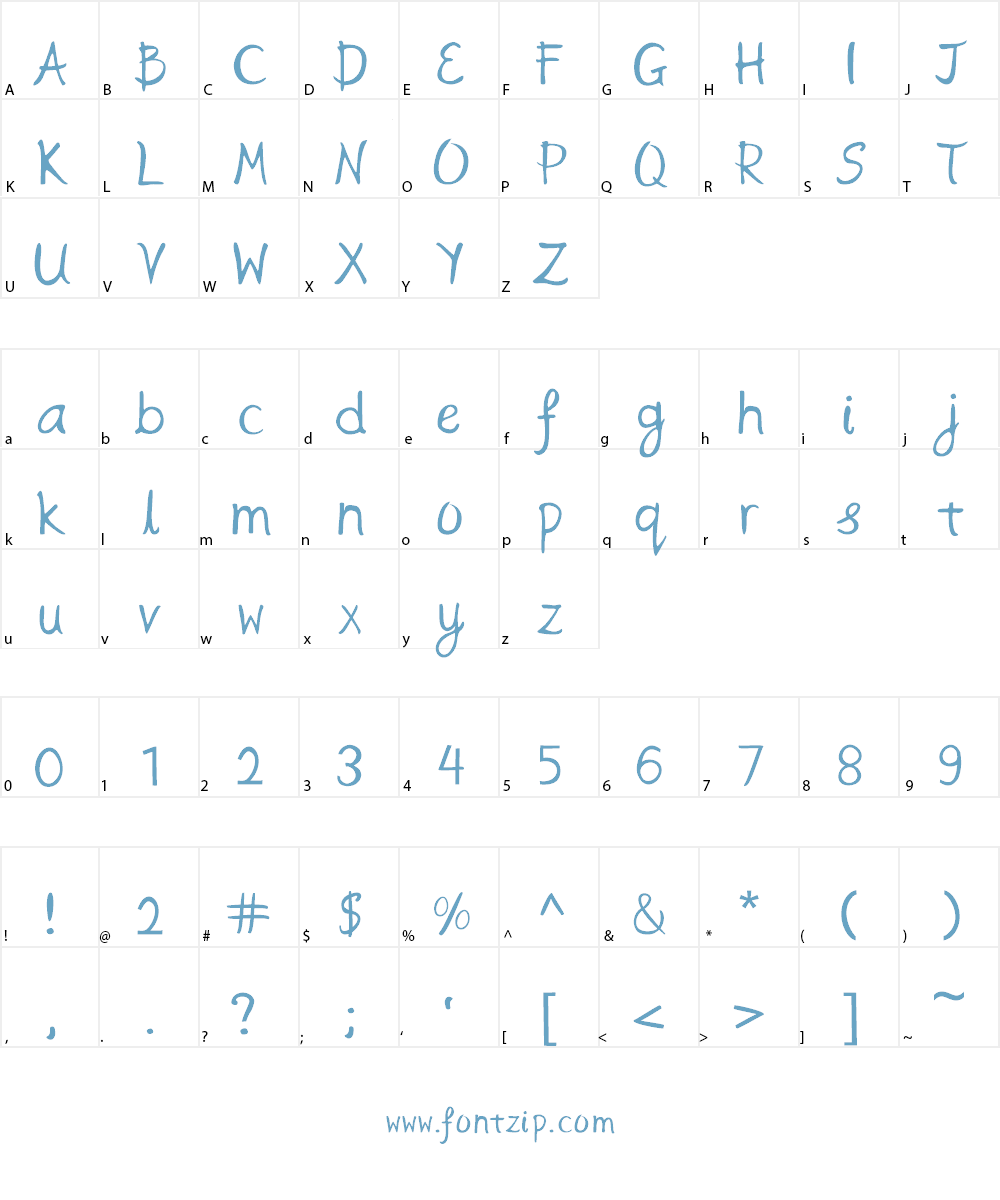
The Ethereal is influenced by the scripts typeface which are derived from handwriting that looks fluid than traditional typefaces. Inspired by the characteristics of a ballet
dancer which not only gentle and graceful, it also shows the persistency, perseverance, teamwork to express out the story through the physical expression.